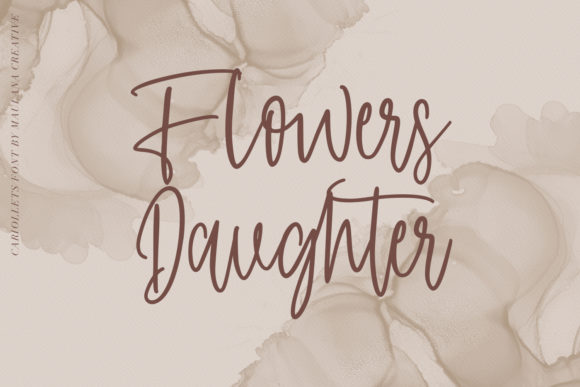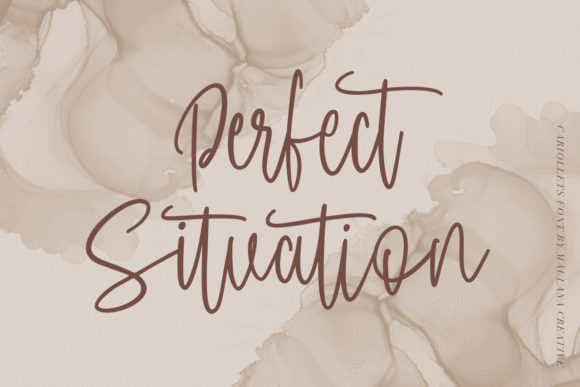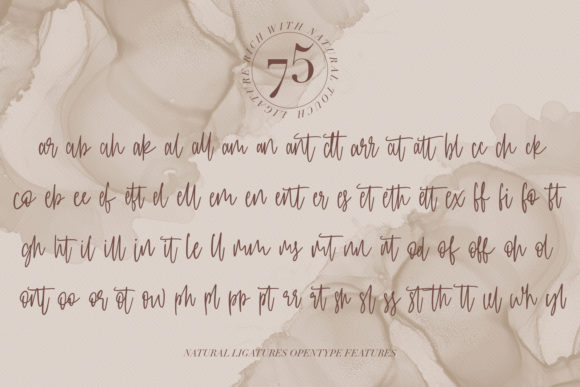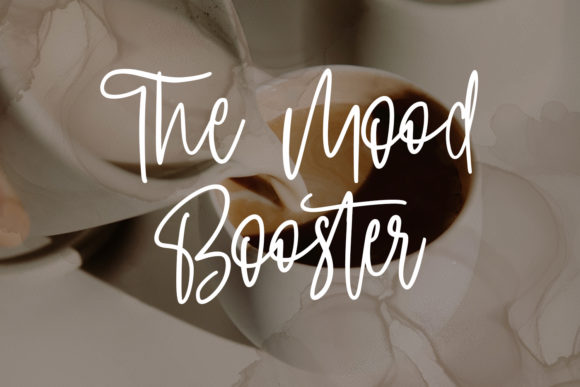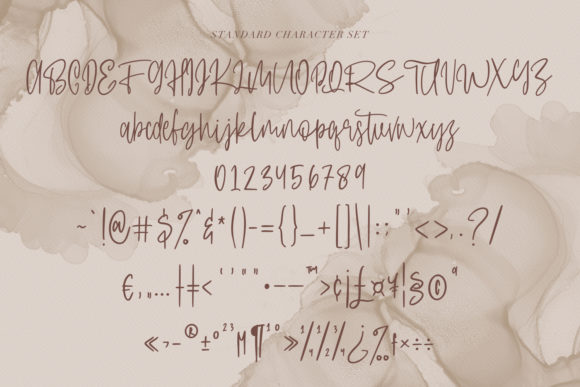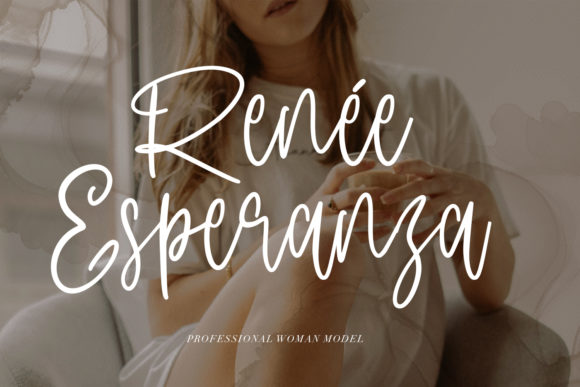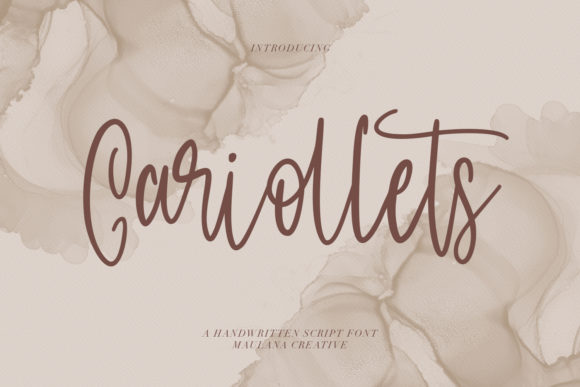
Cariollets Font: Elevate Your Designs with Elegance and Sophistication
In the world of typography, few fonts manage to capture the essence of elegance and sophistication as beautifully as Cariollets. This stunning script font has been making waves in the design community, and for good reason. Cariollets is a stylish and incredibly elegant script font that can instantly elevate your designs, adding a touch of handwritten charm that is sure to leave a lasting impression.
What Makes Cariollets So Special?
Cariollets is more than just a font – it’s an experience. Its flowing lines, intricate details, and beautiful swashes come together to create a truly unique and captivating visual identity. Whether you’re working on a wedding invitation, a thank you card, a quote, or a logo, Cariollets is the perfect choice for designers and crafters looking to add a touch of sophistication and glamour to their work.
One of the things that sets Cariollets apart is its versatility. This font is perfect for a wide range of design projects, including:
- Wedding invitations: Add a touch of romance and elegance to your wedding invitations with Cariollets.
- Thank you cards: Express your gratitude in style with this beautiful script font.
- Quotes: Make your quotes stand out with Cariollets’ stunning typography.
- Greeting cards: Create beautiful and memorable greeting cards for any occasion.
- Logos: Use Cariollets to create a unique and sophisticated logo for your business or brand.
- Business cards: Elevate your business cards with Cariollets’ elegant and professional typography.
Why Designers and Crafters Love Cariollets
So, why have designers and crafters fallen in love with Cariollets? Here are just a few reasons:
- Elegance and sophistication: Cariollets adds a touch of elegance and sophistication to any design, making it perfect for high-end brands and luxury products.
- Handwritten charm: This font’s handwritten feel makes it perfect for designs that require a personal touch.
- Versatility: Cariollets can be used for a wide range of design projects, from wedding invitations to logos and business cards.
- Easy to read: Despite its elegant and cursive nature, Cariollets is surprisingly easy to read, making it perfect for body text and quotes.
Tips for Using Cariollets in Your Designs
To get the most out of Cariollets, here are a few tips to keep in mind:
- Use it sparingly: Cariollets is a statement font, so use it sparingly to make a big impact.
- Pair it with a sans-serif font: Pair Cariollets with a sans-serif font to create a beautiful contrast and add visual interest to your design.
- Experiment with swashes: Cariollets comes with beautiful swashes that can add an extra touch of elegance to your design.
- Play with font sizes: Experiment with different font sizes to create visual hierarchy and add emphasis to your design.